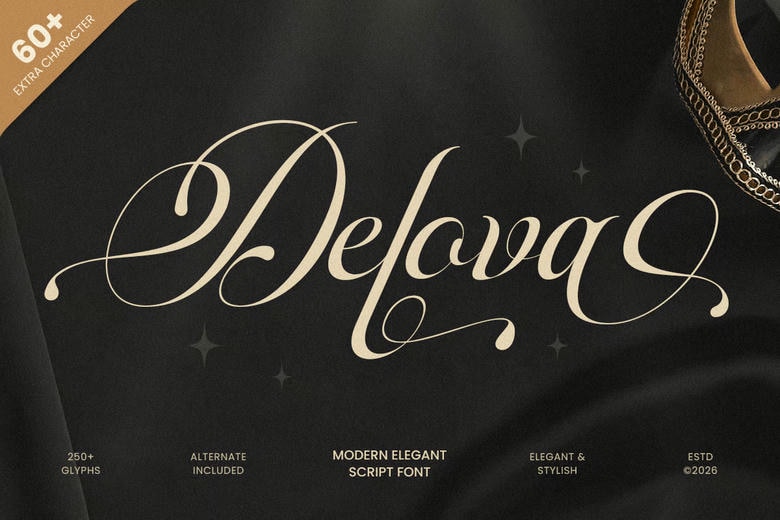
Delova Script Font
Delova is a contemporary graceful script typeface designed to add graceful motion and elegant sophistication to your typography. This typeface has a high-quality visual sound, with flowing lines, smooth curves, and a well-balanced handwritten rhythm, which is stylish, feminine, and memorable at the first sight.
Designed to be elegant in branding and signature-style design, Delova is a great fit in logos, wordmarks, web page headers, packaging, labels, invitations, editorial layouts, social media graphics, presentations, and high-end marketing visuals. Its script format provides a personal, luxurious feel without losing its clarity in both digital and print usage.
You may be developing a beauty brand, designing boutique packaging, creating romantic stationery, or developing high-quality promotional materials, but in any case, Delova offers a beautiful script base that makes your typography feel expressive, refined, and memorable.